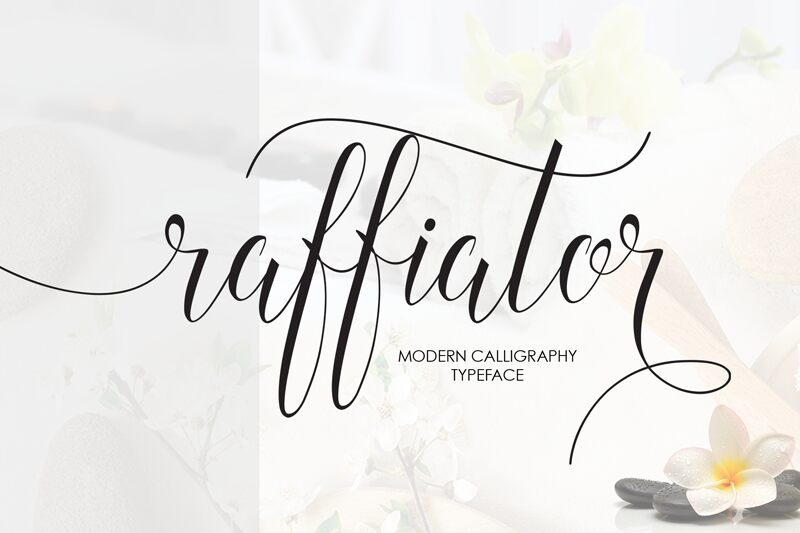
Raffiator, designed by Moriztype, is an exquisite modern calligraphy font with an extra-light weight. Its delicate strokes and graceful curves lend elegance and sophistication to any project.
Use Raffiator to add a touch of refined beauty to wedding invitations, logo designs, or luxury branding materials. The font's airy nature makes it perfect for feminine blogs and magazines, while its contemporary flair also suits modern fashion editorials or high-end product packaging.
With Raffiator's ethereal charm, your designs will captivate and leave a lasting impression on your audience.